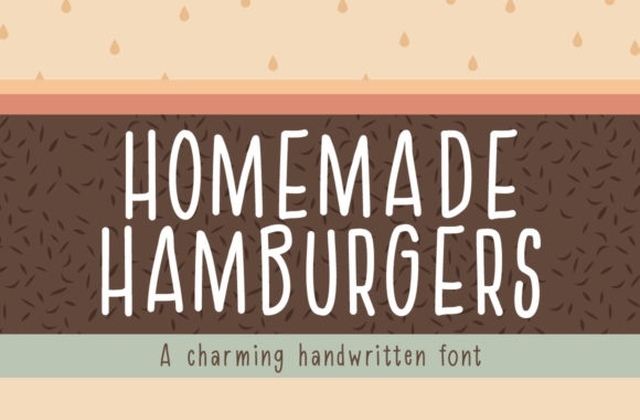
Homemade Hamburgers Font
Homemade Hamburgers Font is perfect for various design applications including local burger joint branding, family-owned restaurant signage, comfort food diner menus, homestyle cooking establishments, neighborhood grill communications, casual family restaurant materials, burger food truck graphics, backyard barbecue event promotions, home cooking recipe books, and authentic comfort food brand identities. This appetizing typeface excels in projects requiring comfort food appeal and homestyle authenticity that captures the satisfying warmth and family-friendly atmosphere of genuine home cooking and neighborhood dining.
What makes Homemade Hamburgers Font so exciting is its delicious embodiment of comfort food warmth and homestyle cooking authenticity through letterforms that suggest hand-lettered menu boards and the welcoming atmosphere of family-owned restaurants where every meal is prepared with care. The font features friendly construction that mirrors the casual comfort of neighborhood diners, approachable proportions that communicate home cooking warmth and family hospitality, and distinctive character details that evoke hand-painted signs and the personal touch that makes homemade food so satisfying. Its distinctive comfort food character and family appeal make it perfect for food brands seeking to communicate authenticity, warmth, and the kind of homestyle quality that creates loyal customers and lasting memories.
Homemade Hamburgers Font family includes multiple appetizing weights and comfort food variations that enhance its versatility for different restaurant applications. Each style maintains the font's signature homestyle character while providing options for various comfort food design approaches. The family also features food-themed decorative elements, comfort cooking symbols, and family restaurant ornaments that can be combined with the letterforms to create cohesive homestyle dining design systems.
Whether you're developing comfort food brands, family restaurant communications, or homestyle cooking projects, Homemade Hamburgers Font Free Download provides appetizing typography that satisfies hunger for authentic comfort food and celebrates the irreplaceable warmth of homestyle cooking and family dining traditions. This typeface transforms ordinary communications into mouthwatering invitations that promise satisfying comfort food and genuine family hospitality. The font's comfort appeal makes it particularly effective for local restaurants, family diners, and comfort food establishments targeting customers who appreciate authentic homestyle cooking and neighborhood dining atmosphere.
Homemade Hamburgers Font stands out by delivering genuine comfort food authenticity that feels like real homestyle cooking rather than artificial restaurant theming or mass-produced food marketing. Its carefully crafted comfort proportions and homestyle details ensure that designs feel authentically connected to family cooking traditions while maintaining appetizing appeal and neighborhood charm. From local burger joint branding to comfort food communications, this font provides designers with tools to create communications that celebrate homestyle cooking and inspire appreciation for authentic comfort food through warm, family-inspired typography that serves up satisfaction every time.